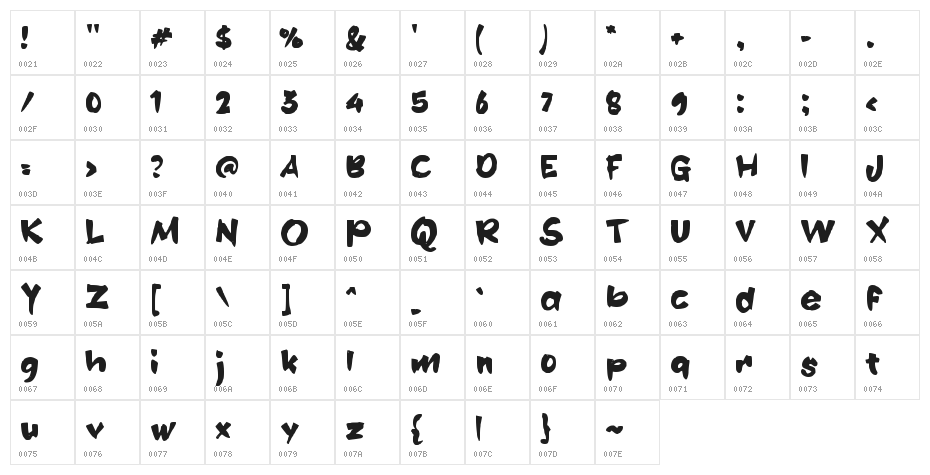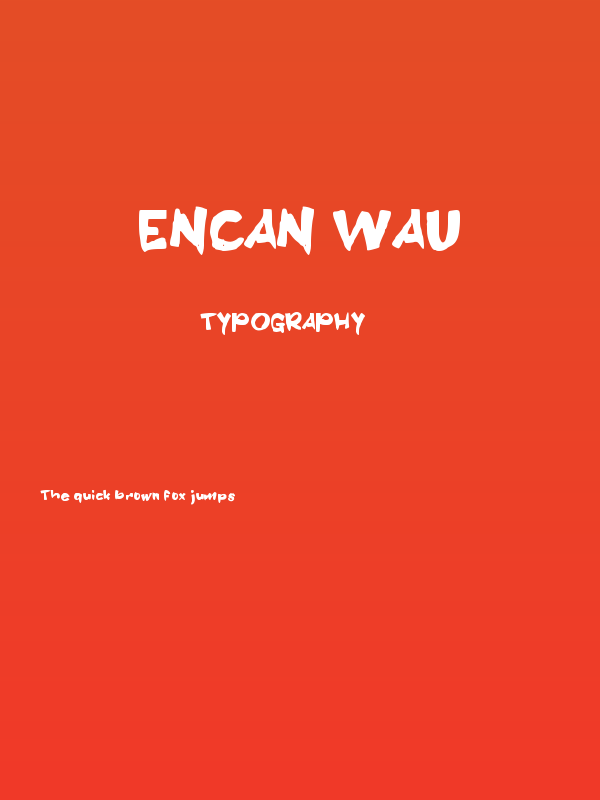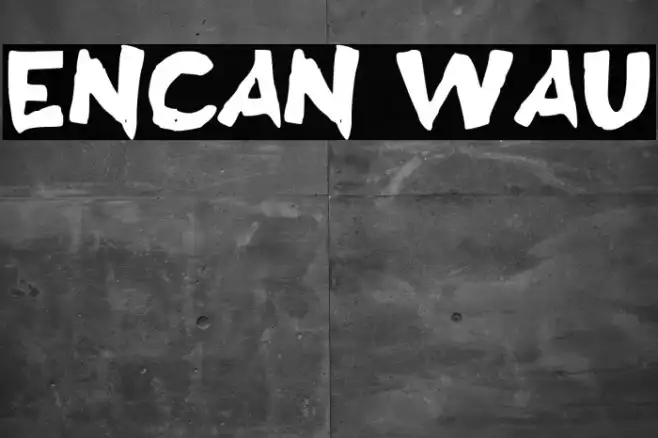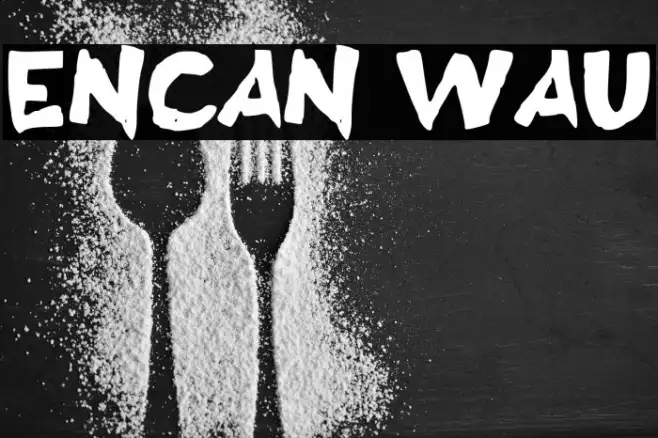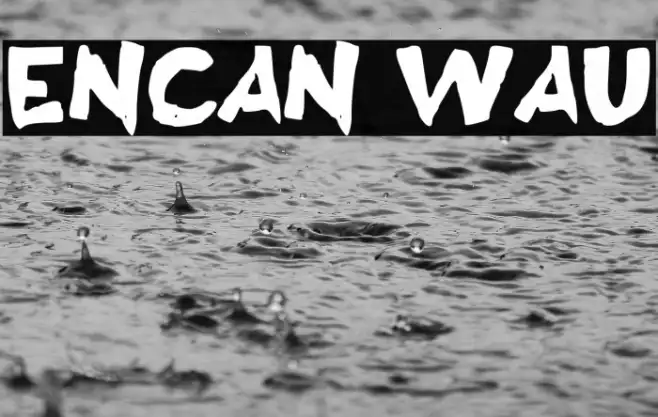
ENCAN WAU Font
ENCAN WAU Description
This font features a bold and expressive style with a hand-drawn appearance. The characters are irregular and dynamic, giving a sense of movement and energy. The uppercase and lowercase letters maintain a consistent weight, while the numbers and special characters complement the overall aesthetic. The strokes are thick and uneven, adding to the playful and informal feel. This font is ideal for projects that require a personal touch or a creative flair, such as posters, invitations, or artistic branding.
| Proposed Projects | Ideal for creative projects like posters, invitations, and artistic branding. |